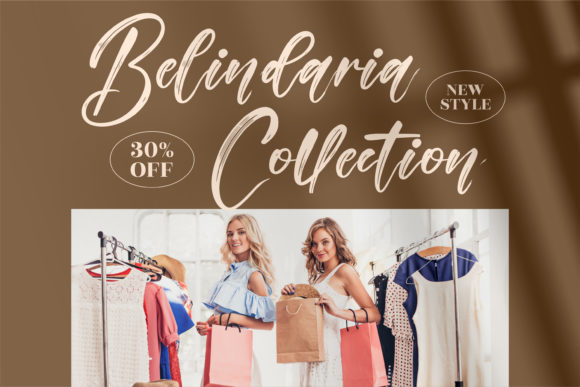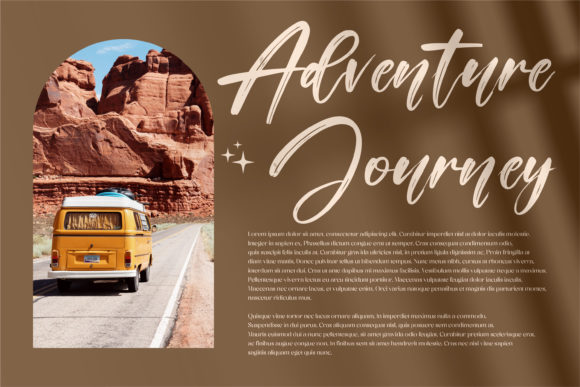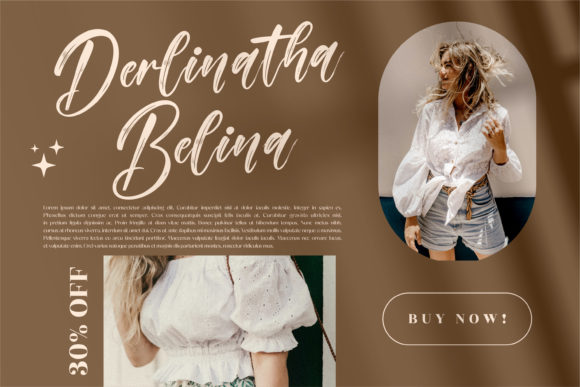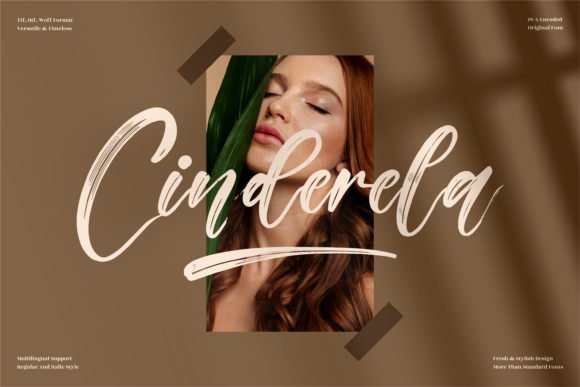
Introduction to Cinderela Font
Cinderela is a flowing and brushed script font.
It has beautiful and well balanced characters and as a result, it matches a wide pool of designs Add it to your most creative ideas and notice how it makes them come alive.
Key Features of Cinderela Font
Why Choose Cinderela Font?